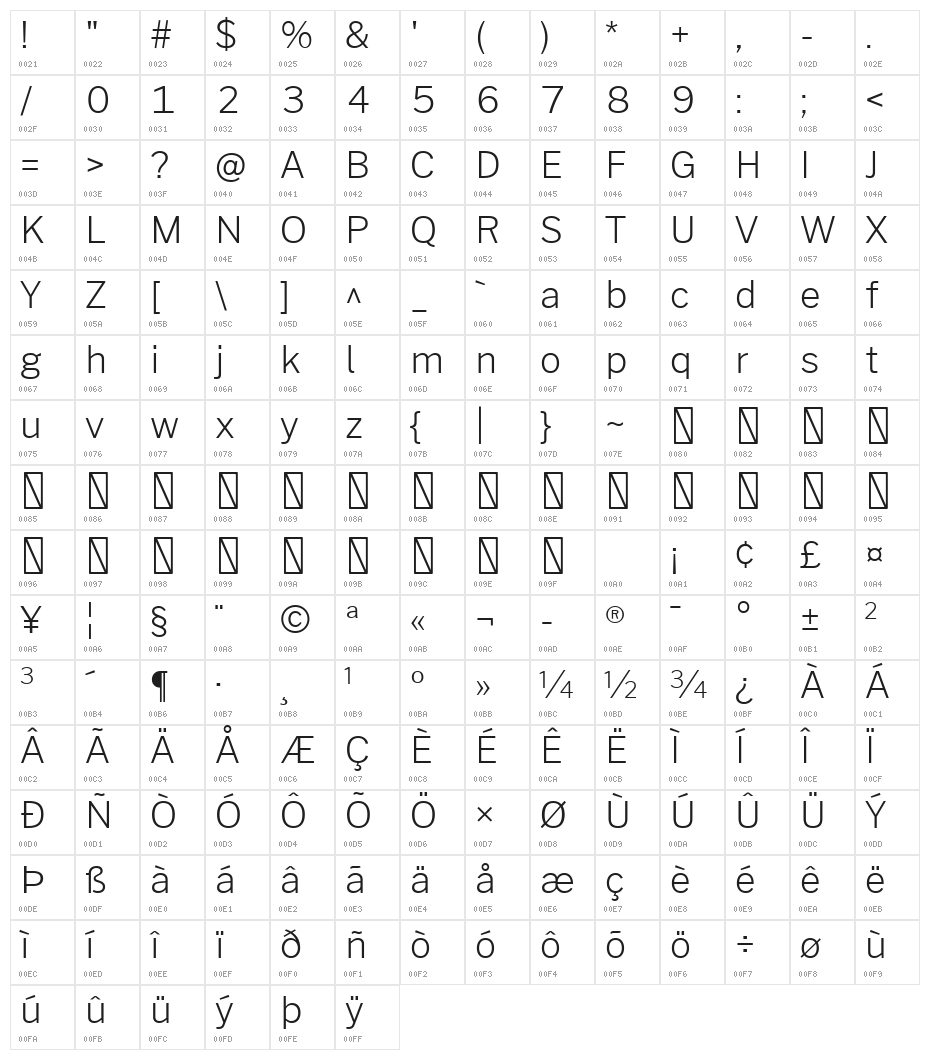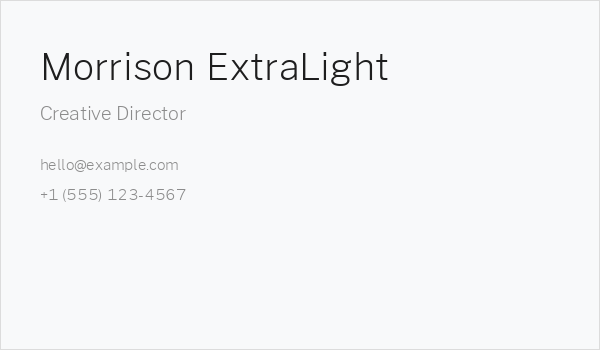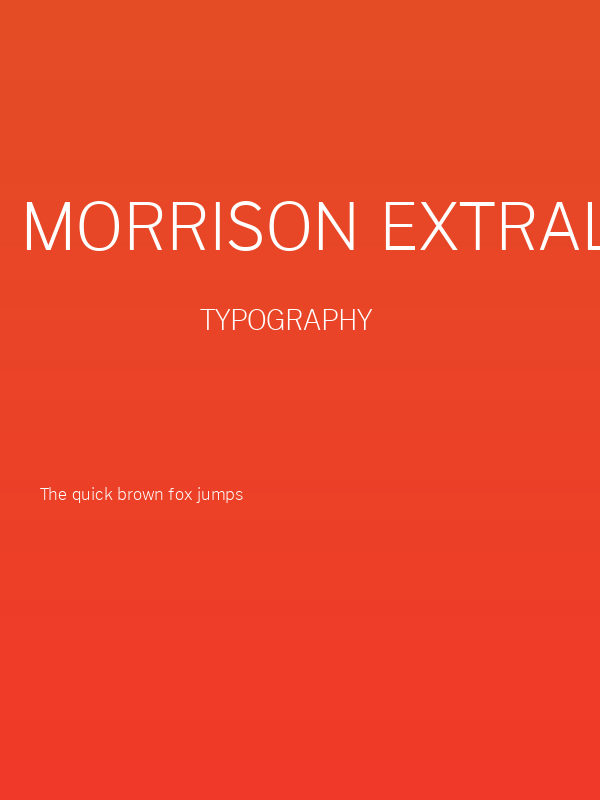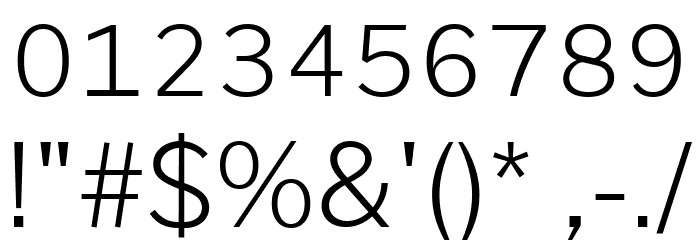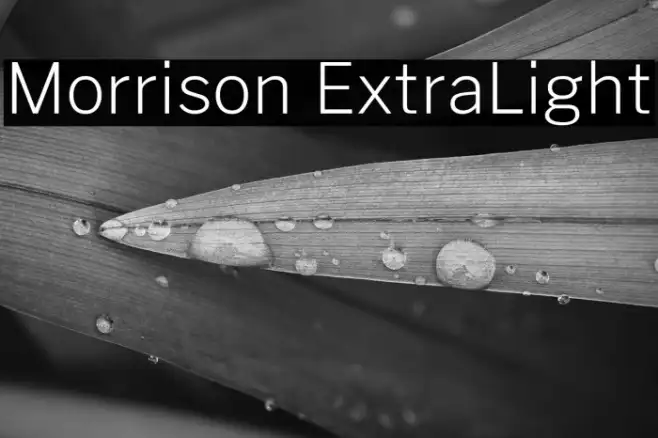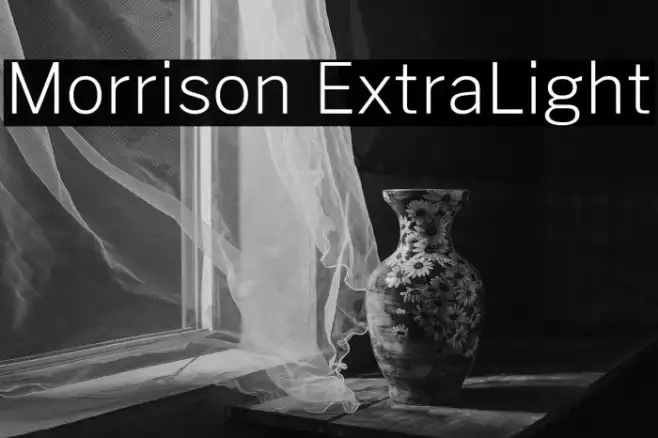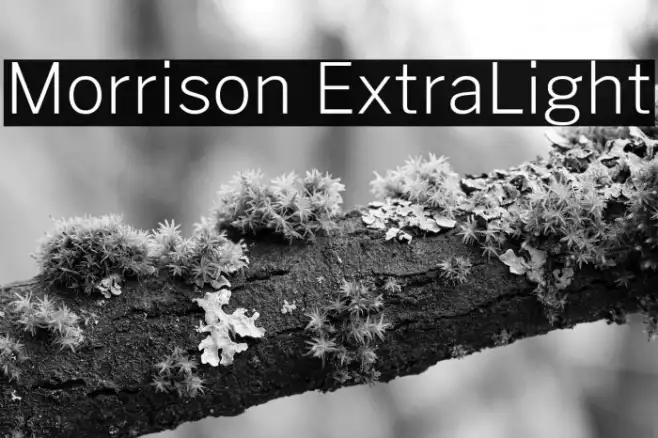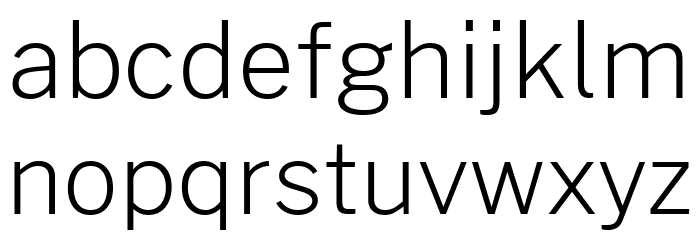
Morrison ExtraLight Font
Morrison ExtraLight Description
This font features a clean and modern sans-serif design with a focus on simplicity and readability. The characters are evenly spaced, contributing to a balanced and harmonious appearance. The strokes are consistent and uniform, with a low contrast between thick and thin lines, which enhances its legibility. The font's geometric shapes and straight lines give it a contemporary feel, making it suitable for a wide range of applications. Its extra light weight adds an elegant touch, ideal for projects that require a subtle and refined aesthetic.
| Proposed Projects | Ideal for minimalist branding, modern web design, clean editorial layouts, and corporate materials. |